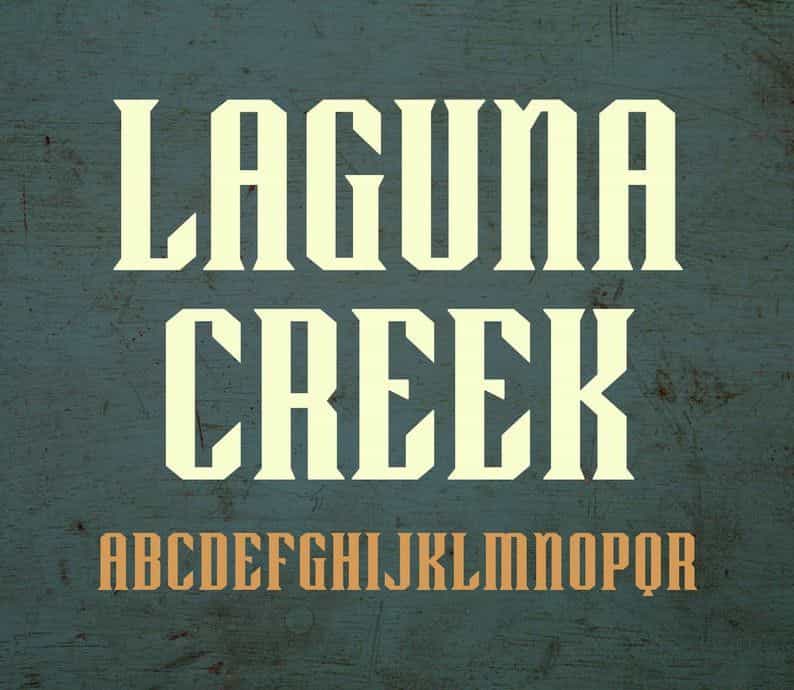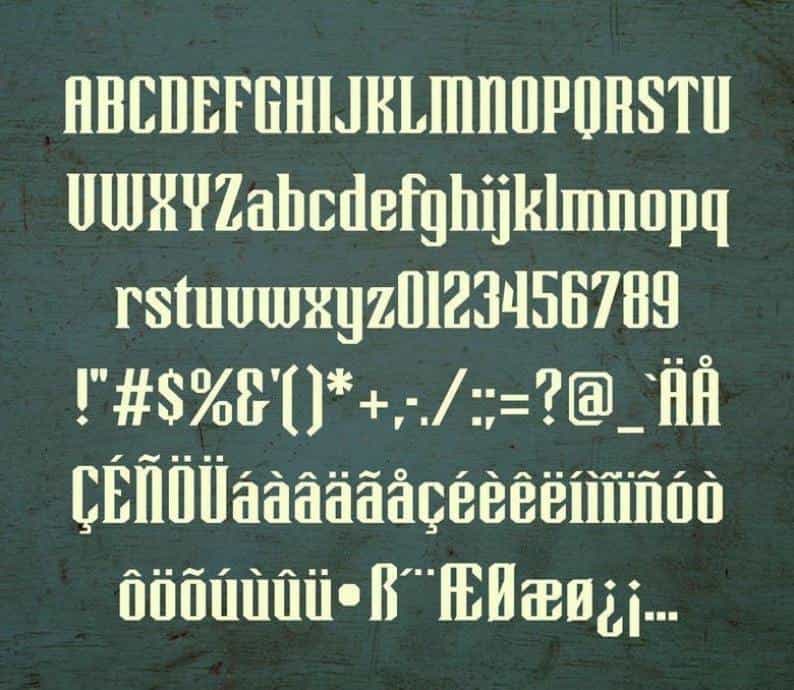
Laguna Creek Font
Discover Laguna Creek Font, part of the   Serif Display Techno collection—a versatile and unique font perfect for adding a personal touch to your projects. Download it for free and enjoy crafting designs with style, from invitations to social media posts. This font is available exclusively for personal use, giving you the freedom to create without limits. Unlock your creativity with Laguna Creek Font today!
I have designed this character set for display at large point sizes. The 3 looks wrong in your demonstration, a shortcoming. You may only use this font for personal projects. When you upgrade to the premium edition, in addition to fixing up that 3 you may also use it commercially.